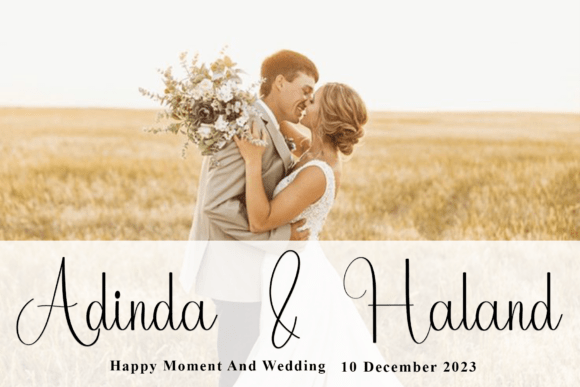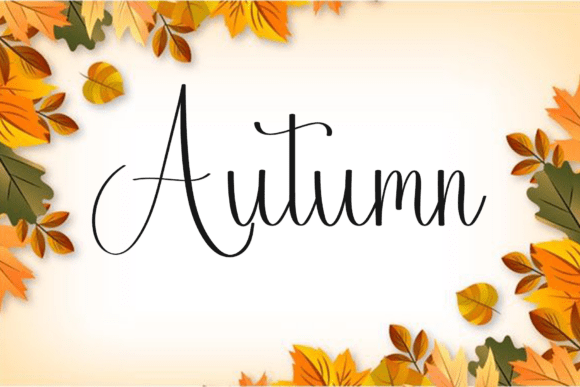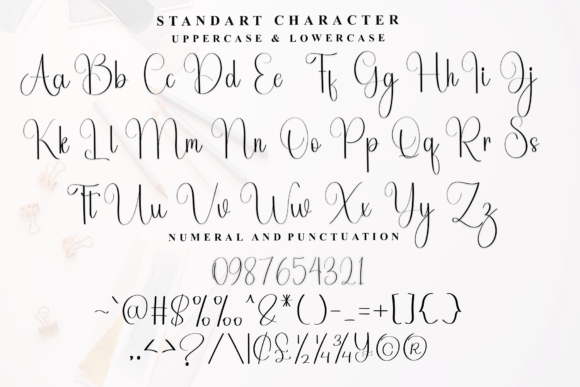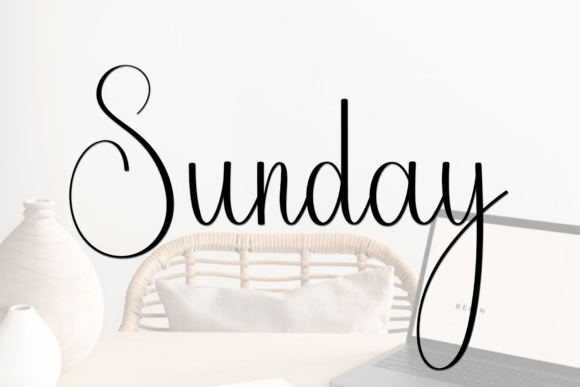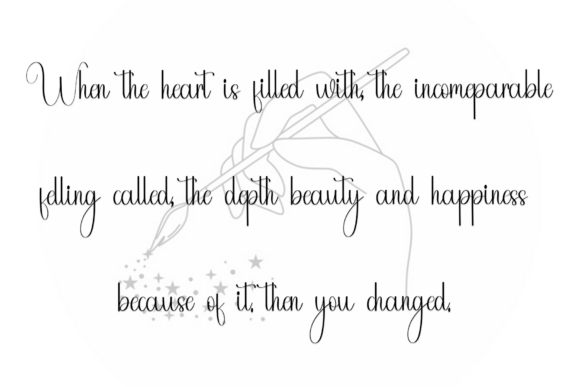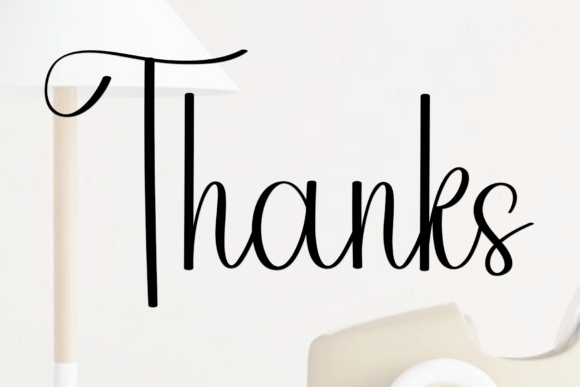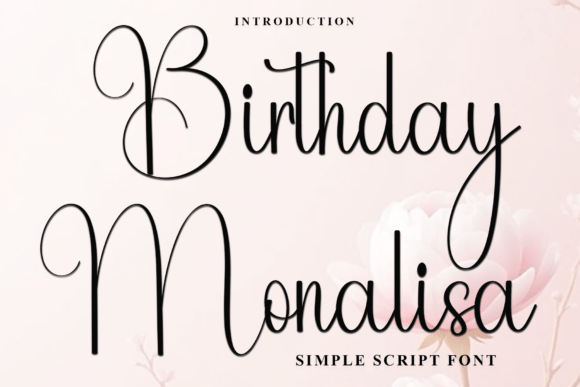
Introducing the Birthday Monalisa Font: Elevate Your Designs with Elegance and Versatility
Are you a designer, crafter, or creative looking for a unique and captivating font to elevate your projects? Look no further than the Birthday Monalisa Font, a stunning and eye-catching typeface that is sure to leave a lasting impression. Designed with a soft, unique touch, this beautiful font is perfect for a wide range of applications, from design projects and crafts to artistic and creative works.
A Font Like No Other: Distinctive Strokes and Special Character
What sets the Birthday Monalisa Font apart from other fonts is its distinctive strokes, which give it a special character that is both meaningful and versatile. With its natural, flowing lines and curves, this font exudes a sense of elegance and sophistication, making it perfect for designs that require a touch of refinement and poise.
Whether you’re working on a logo, branding project, or marketing materials, the Birthday Monalisa Font is sure to make your designs stand out from the crowd. Its unique character and charm will captivate your audience and leave a lasting impression, making it an ideal choice for designers and crafters looking to create something truly special.
Endless Possibilities: Compatible with Various Applications
From digital designs and crafts to print materials and products, the Birthday Monalisa Font is the perfect choice for designers and crafters who want to create something truly unique and special. With its wide range of characters and symbols, you can use this font to create everything from custom signs and posters to invitations and party decorations.
Perfect for Design Projects, Crafts, and Creative Works
The Birthday Monalisa Font is a dream come true for designers, crafters, and creatives who are looking for a font that can help them take their projects to the next level. With its beautiful, flowing lines and curves, this font is perfect for a wide range of applications, including:
- Design projects: logos, branding, marketing materials, and more
- Crafts: custom signs, posters, invitations, and party decorations
- Artistic and creative works: paintings, drawings, and digital art
Whether you’re a professional designer or a hobbyist crafter, the Birthday Monalisa Font is sure to inspire and delight. Its unique character and charm will add a touch of elegance and sophistication to your designs, making them truly unforgettable.
Why Choose the Birthday Monalisa Font?
So why choose the Birthday Monalisa Font for your next design project or creative endeavor? Here are just a few reasons why this font stands out from the rest:
- Unique and eye-catching design
- Distinctive strokes and special character
- Versatile and compatible with various applications
- Wide range of characters and symbols
- Perfect for design projects, crafts, and creative works
In conclusion, the Birthday Monalisa Font is a beautiful and eye-catching typeface that is sure to elevate your designs and creative projects to new heights. With its unique character, distinctive strokes, and versatility, this font is perfect for designers, crafters, and creatives who want to create something truly special.
So whether you’re working on a design project, craft, or artistic and creative work, the Birthday Monalisa Font is the perfect choice. Its wide range of characters and symbols, combined with its compatibility with various applications, make it an ideal font for a wide range of projects and creative endeavors.